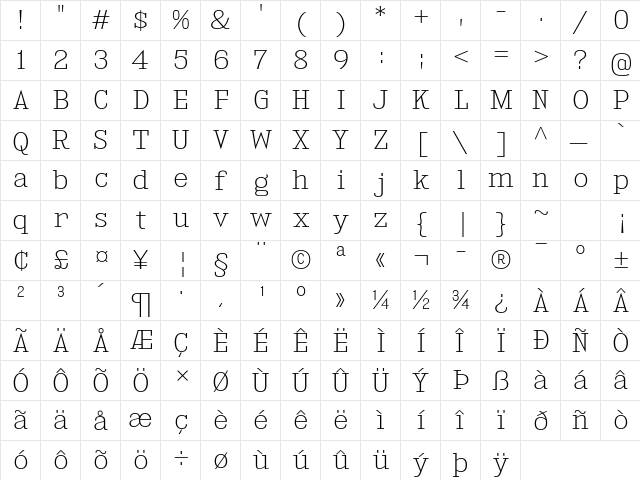
Kingsbridge ExtraLight Font Preview
Kingsbridge ExtraLight
Kingsbridge ExtraLight Font Details
Design Context for Kingsbridge Typeface
Kingsbridge takes a measured approach to typography — its balanced proportions and neutral character make it a reliable workhorse for both digital and print work. Its slender proportions lend an understated elegance to any composition.
Pro Tip: Use Kingsbridge in both headline and body roles to test its range before committing to a single application.